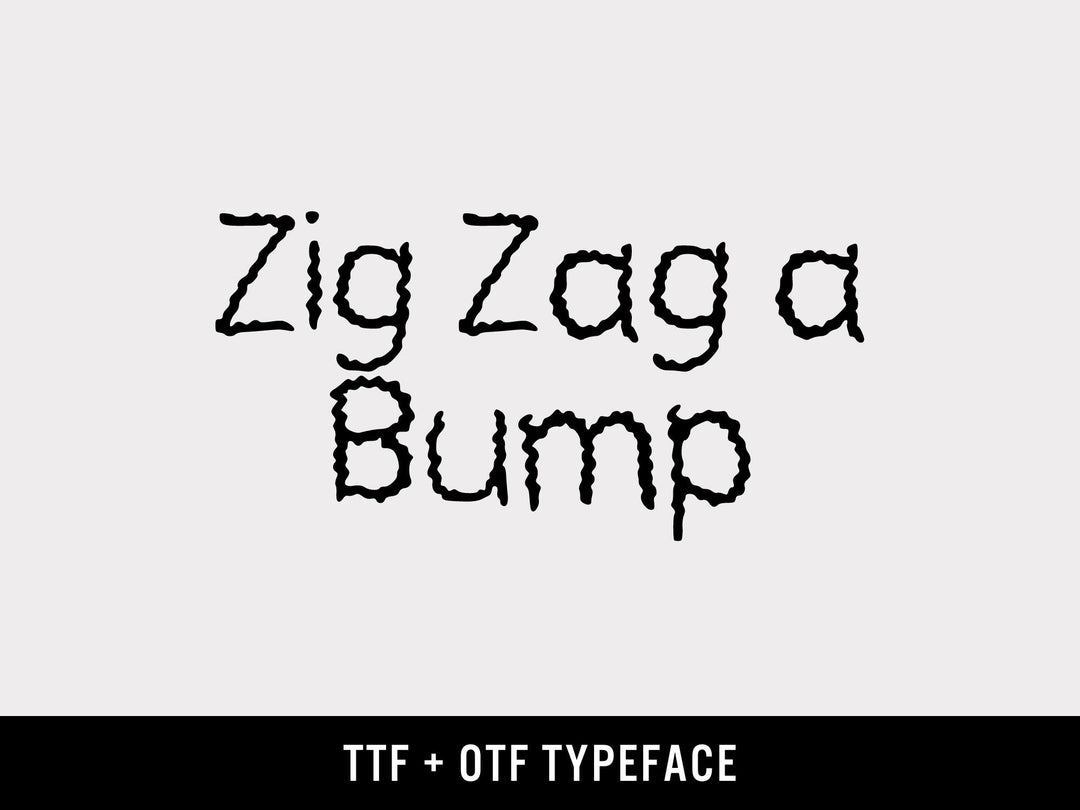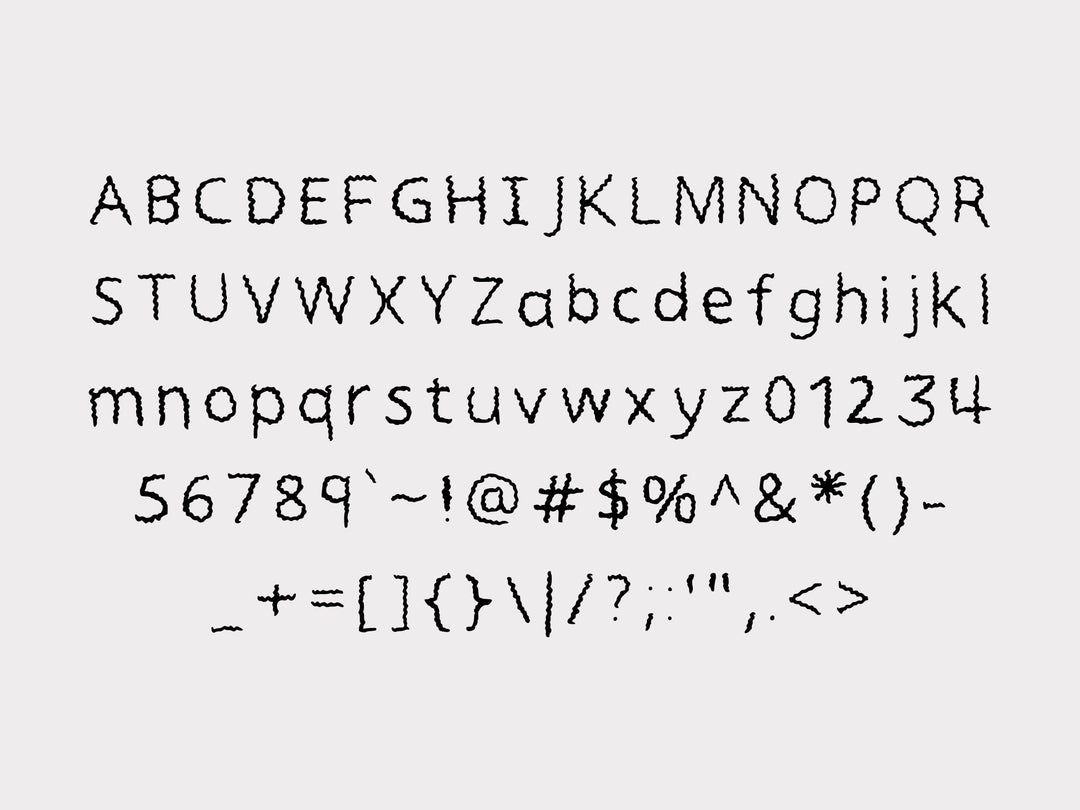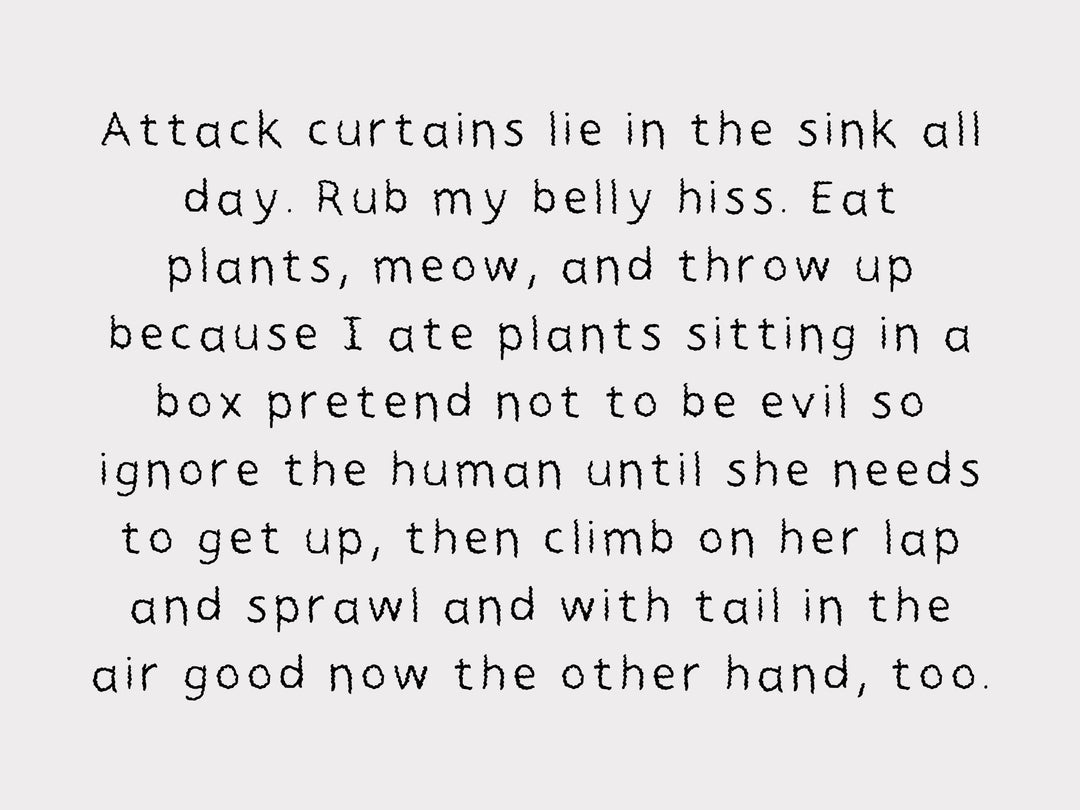
Perfect for
- logo and brand design
- wedding and event stationery
- t-shirt and apparel lettering
- social media graphics and quotes
- packaging and product labels
- website headings via web fonts